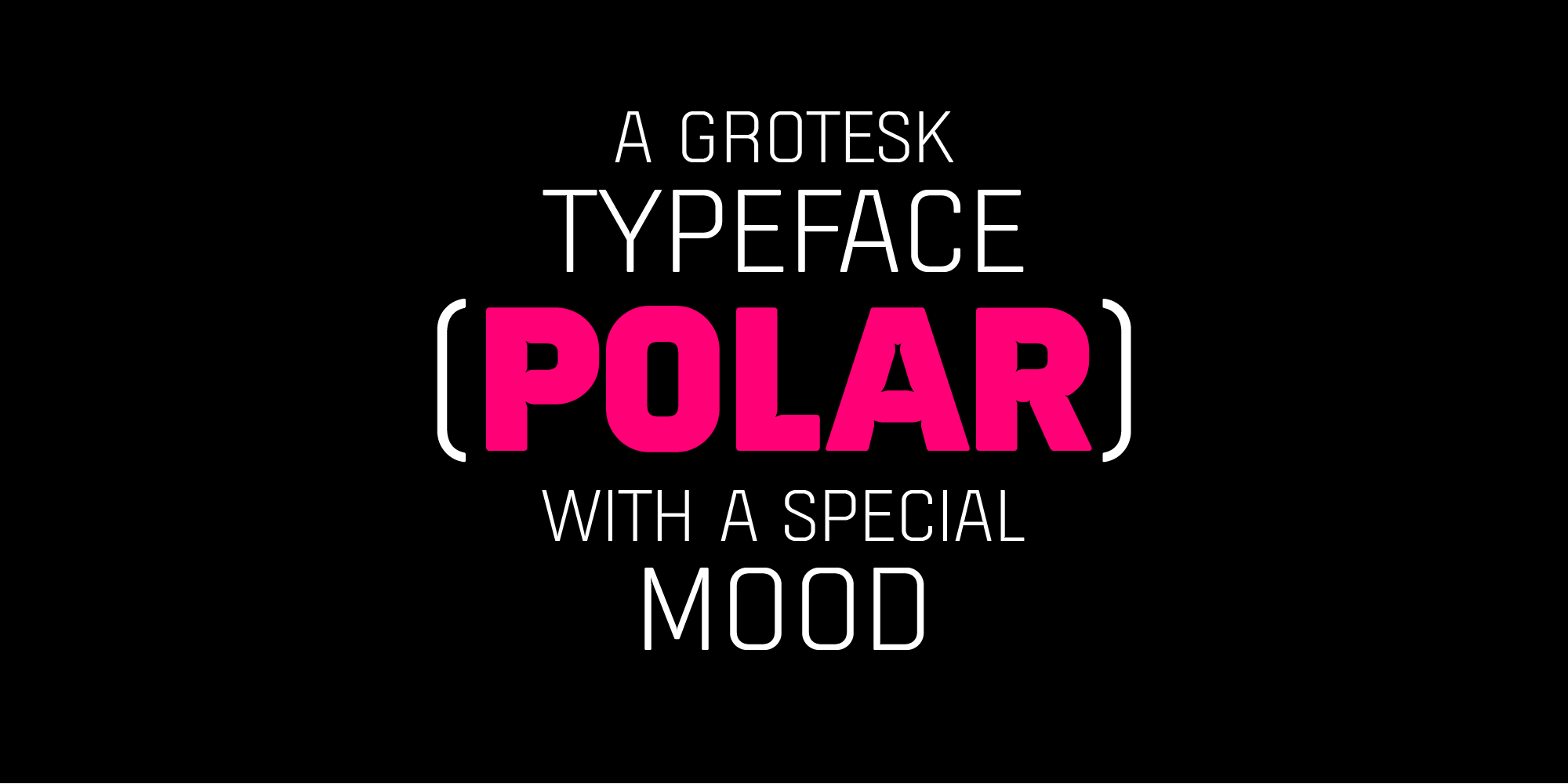
Polar Font is perfect for Arctic expedition branding, winter sports equipment packaging, ice-cold beverage advertisements, minimalist fashion labels, clean technology companies, crisp architectural signage, polar research publications, and pristine hospitality identities. This crystalline typeface excels in clean environments, winter-themed applications, and any project requiring pristine clarity that communicates arctic precision and pure simplicity through ice-cold visual sophistication.
What makes Polar Font exciting is its exceptional ability to embody arctic purity and crystalline clarity through precisely crafted letterforms that carry the essence of polar landscapes and pristine winter beauty with minimal sophistication. The font features cleanly designed characters with ice-sharp angles and polar proportions that evoke feelings of pure clarity and arctic authenticity, making it ideal for brands seeking to establish connections with clean-living audiences and communicate through pristine visual language. Its crystalline presence ensures immediate recognition of pure authenticity and arctic sophistication.
Polar Font family includes multiple weights and styles: Regular, Bold, Light, Medium, Italic variations, and crystalline alternates with ice embellishments and polar decorative elements. Each family member maintains the distinctive arctic character while offering comprehensive design options for clean campaigns, from crisp informational text to commanding polar headlines that establish pure authority and arctic credibility through crystallinely precise typography.
Whether you're designing clean technology brands or creating pristine winter campaigns, Polar Font Free Download provides the perfect typography solution for arctic branding needs. This font transforms ordinary text into crystalline polar statements that communicate pure clarity and arctic authenticity. Winter sports companies and clean technology brands choose this typeface for its ability to convey polar precision through cleanly crafted letterforms that freeze through designs with arctic elegance and celebrate the beautiful simplicity of polar purity.